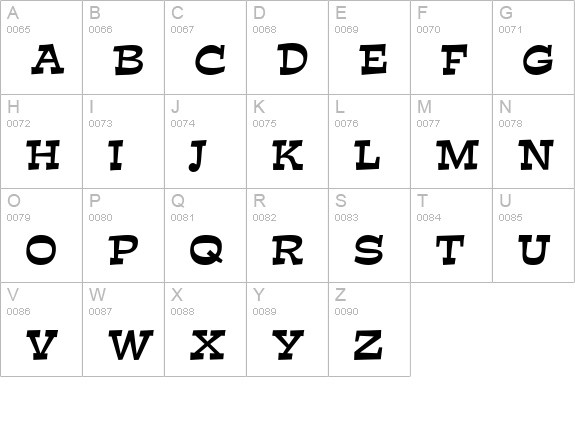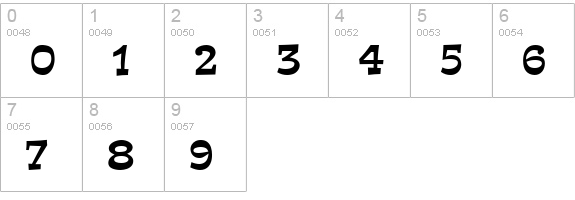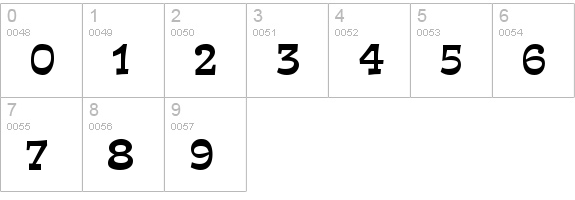
Expo is cool Font Details
Expo is a stunning and stylish font that exudes a sense of cool sophistication. Its sleek lines and modern aesthetic make it perfect for a variety of design projects, from branding to social media graphics. This font effortlessly combines elegance with a contemporary edge, making it a versatile choice for any creative endeavor. Best of all, Expo is available for free download at FontsMarket.com, so you can add this chic font to your collection without breaking the bank. Elevate your designs with Expo and make a bold statement with every word.